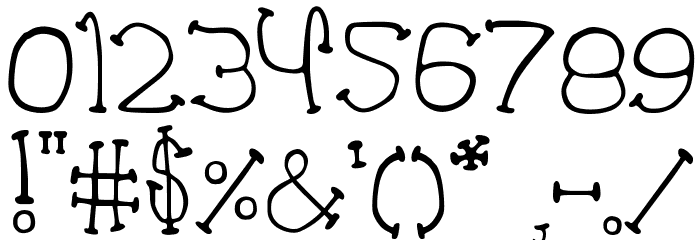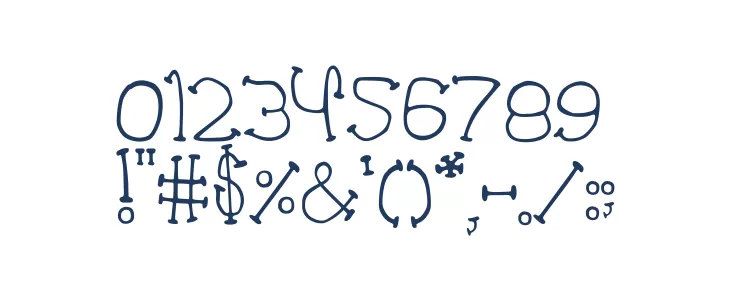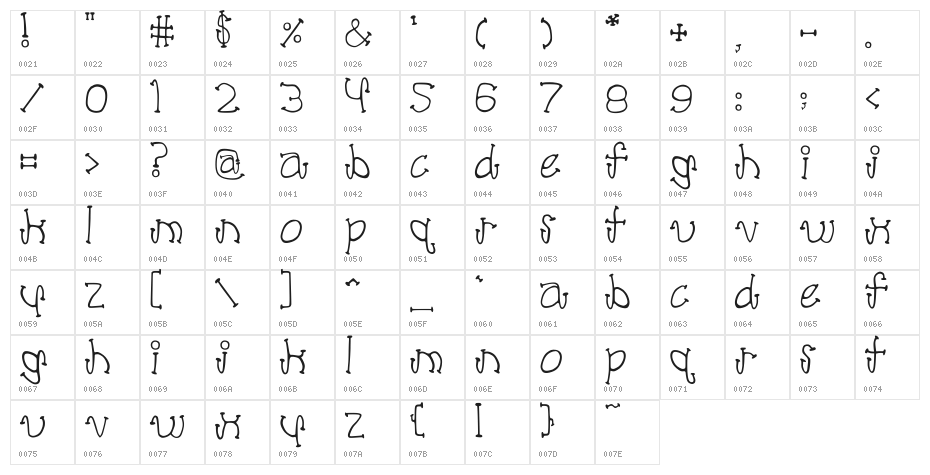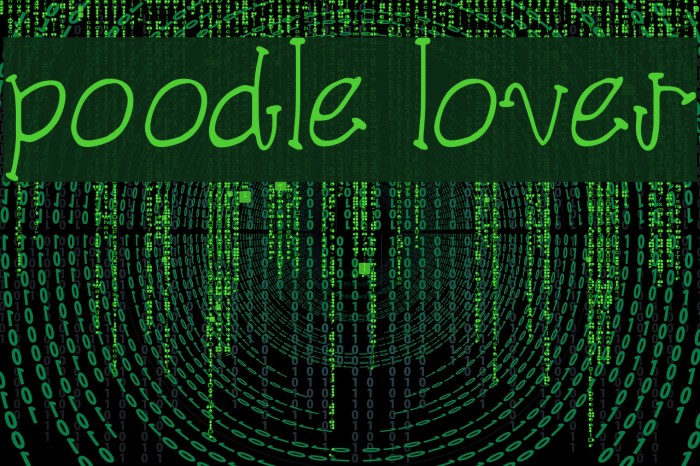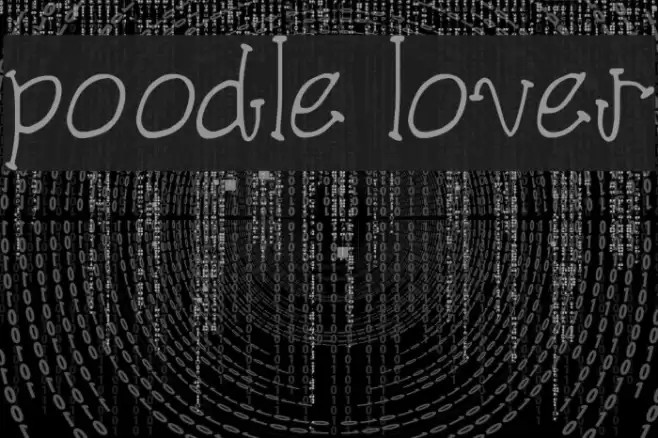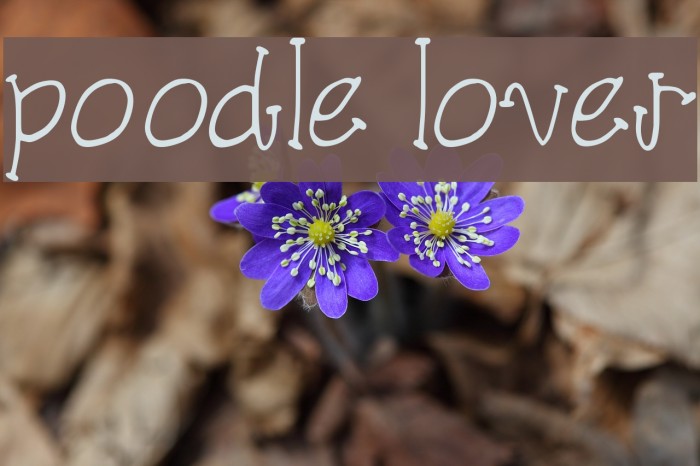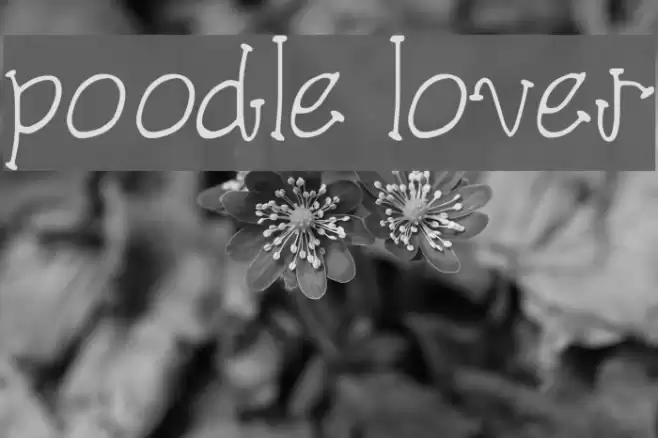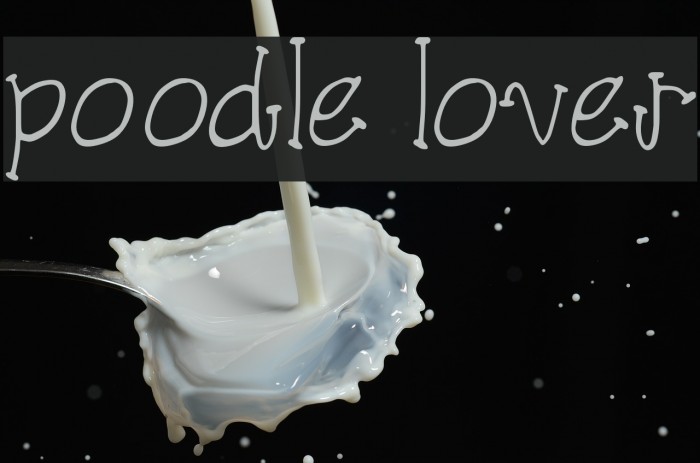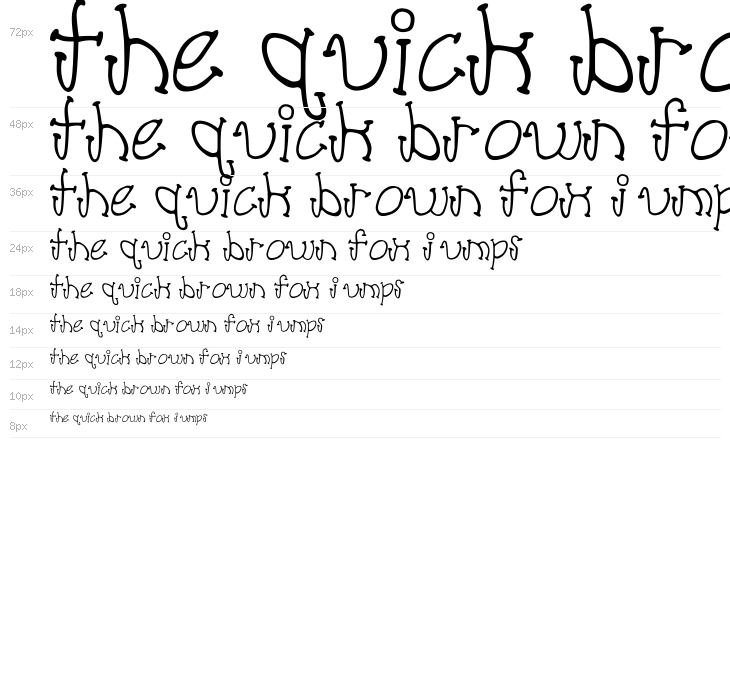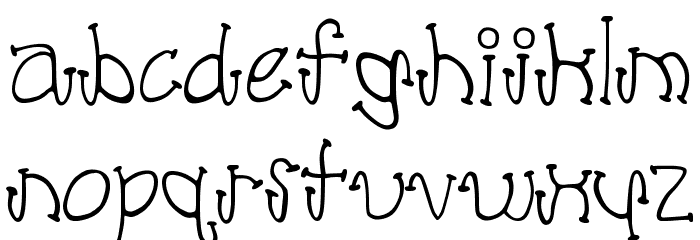
poodle lover Font
poodle lover Description
This playful and whimsical font features a unique, hand-drawn style with a touch of quirkiness. Each character is crafted with a casual, flowing script that exudes a sense of fun and creativity. The letters have a slightly uneven baseline, adding to the informal and relaxed feel. The font includes both uppercase and lowercase letters, numbers, and a variety of special characters. Its distinctive loops and curls give it a lively personality, making it perfect for projects that require a touch of charm and individuality.
| Proposed Projects | Ideal for children's books, greeting cards, playful branding, and creative invitations. |